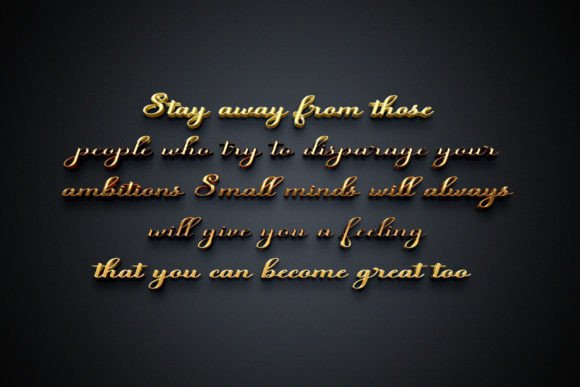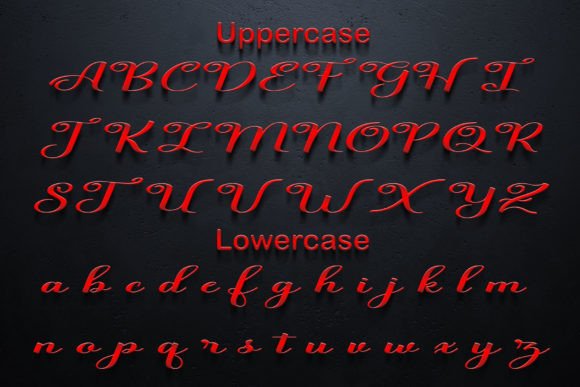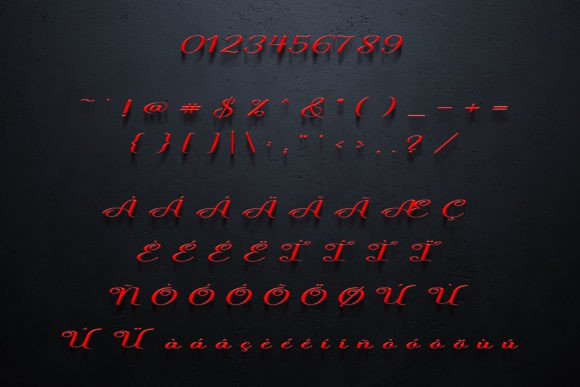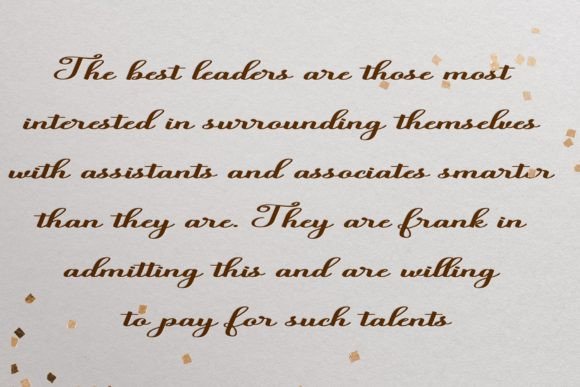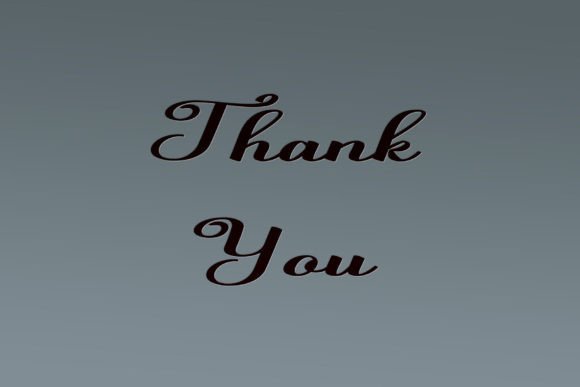
The Birth of a New Script: Anastasia Font
Have you ever found yourself doodling in the margins of a notebook, trying to capture the essence of a loved one’s handwriting? For designers, this creative moment is often a starting point for a new project. It’s a moment of inspiration, where the beauty of imperfection and the uniqueness of a personal touch come together.
Meet Anastasia Font, a new handwriting-style font designed to bring this same sense of personality to your designs. Whether you’re creating a brand identity, designing a set of apparel, or crafting a wedding invitation, Anastasia Font is the perfect tool to add a touch of whimsy and elegance.
As a valuable addition to any designer’s toolkit, Anastasia Font offers a level of flexibility and expressiveness that’s hard to find in more traditional fonts. Its versatility makes it a must-have for anyone looking to add a personal touch to their designs.
Anastasia Font Key Features
- Font Family: Anastasia, Anastasia Script, Anastasia Sans
- Unique Characteristics: Hand-drawn, elegant script with intricate details and flourishes; suitable for formal invitations, wedding stationery, and luxury branding
Anastasia Font Review
As a designer, I was excited to dive into the Anastasia Font. Overall, I’d say it’s a solid choice for a script font, but it has its quirks.
- ✨ Elegant and luxurious feel: Anastasia Font has a sophisticated, high-end aesthetic that’s perfect for upscale branding or special occasions.
- ✨ Beautiful swashes: The font features beautiful swashes and flourishes that add to its elegance and sophistication.
- ✨ Wide language support: Anastasia Font supports a wide range of languages, making it a great choice for global brands.
- ⚠️ Limited font sizes: Anastasia Font can become difficult to read at very large font sizes, which may limit its use in certain applications.
- ⚠️ Not ideal for body text: While the font is perfect for headings and titles, it may not be the best choice for body text due to its ornate nature.
Anastasia Font is a beautiful, elegant script font that’s perfect for special occasions or high-end branding. While it may have some limitations, it’s a great choice for designers looking to add a touch of sophistication to their designs.
Anastasia Font is perfect for:
- Formal event invitations
- Luxury branding and marketing materials
- High-end digital publications